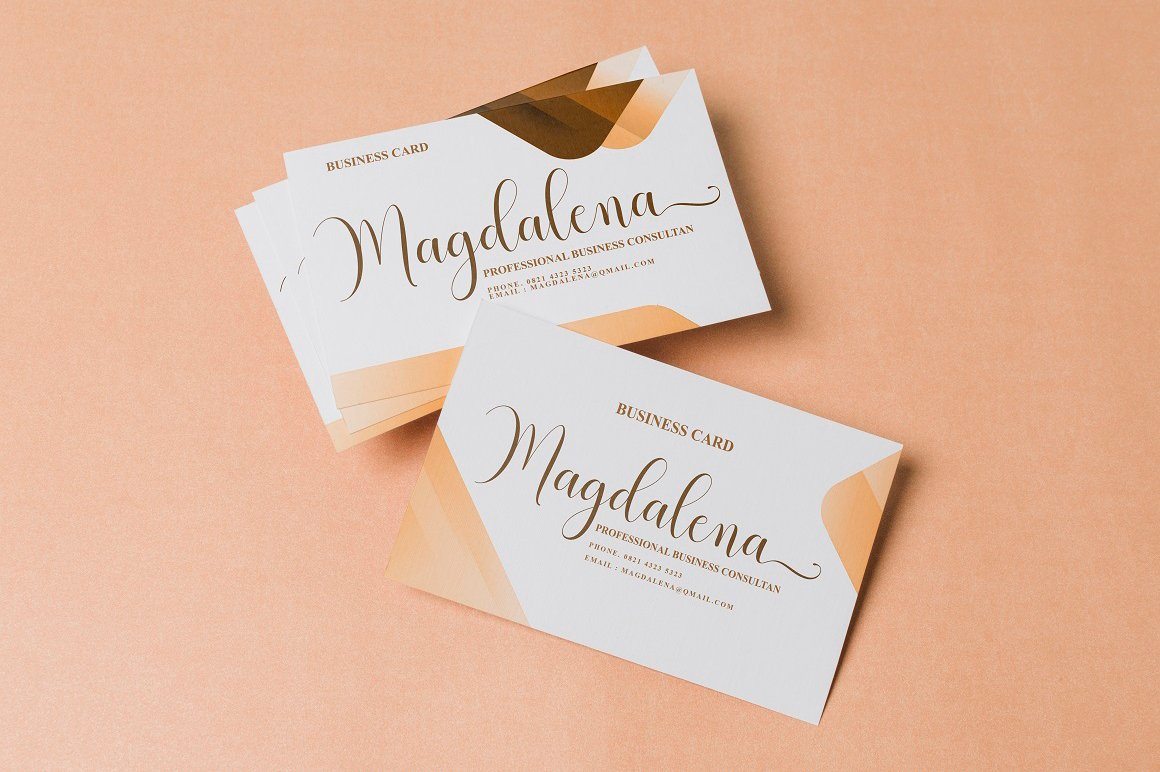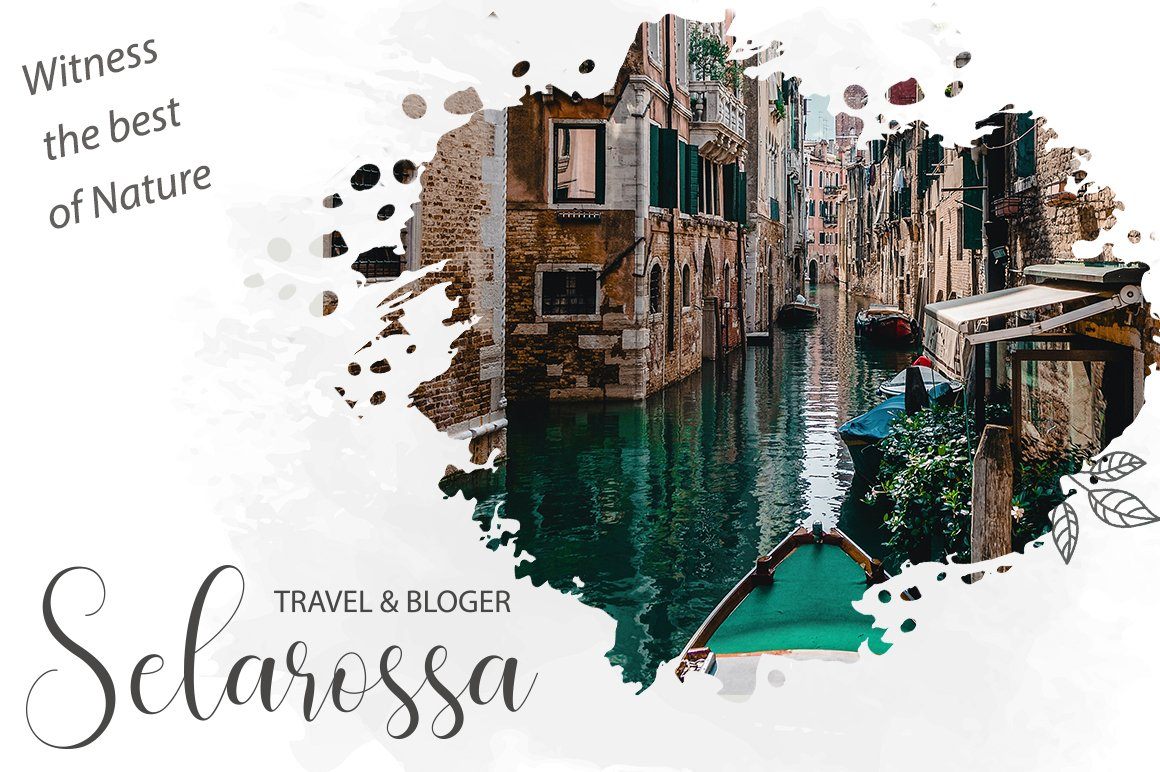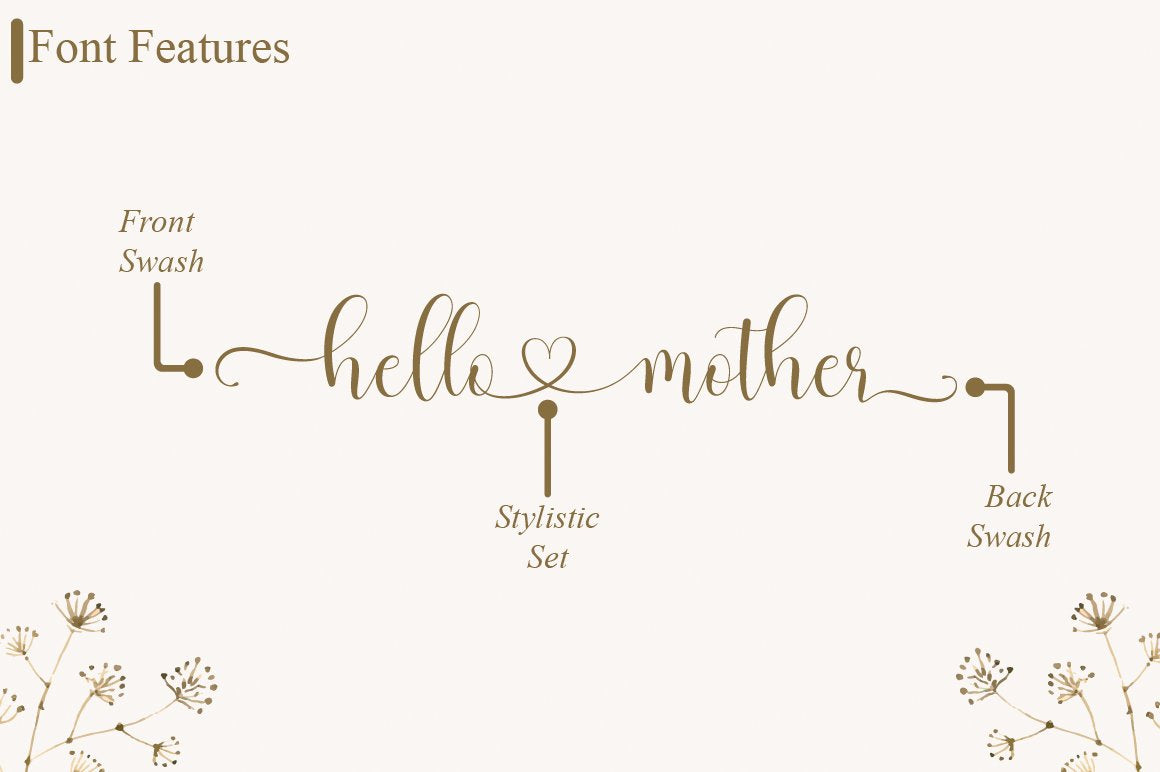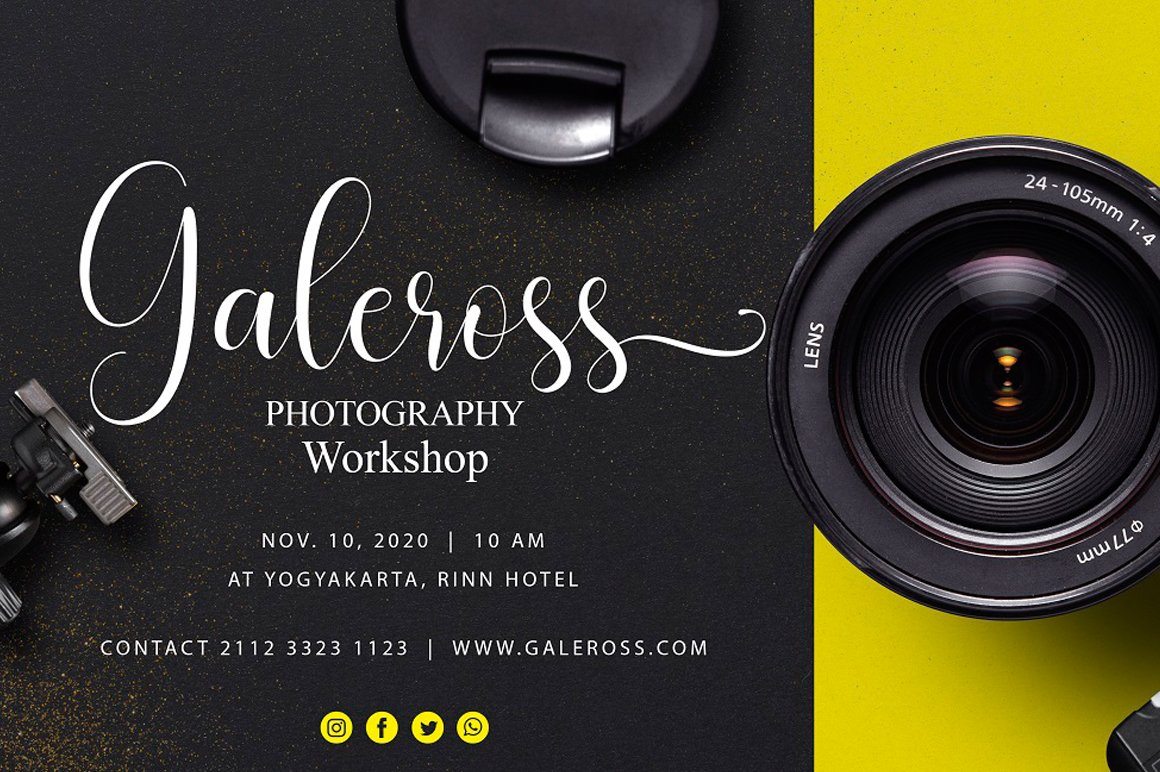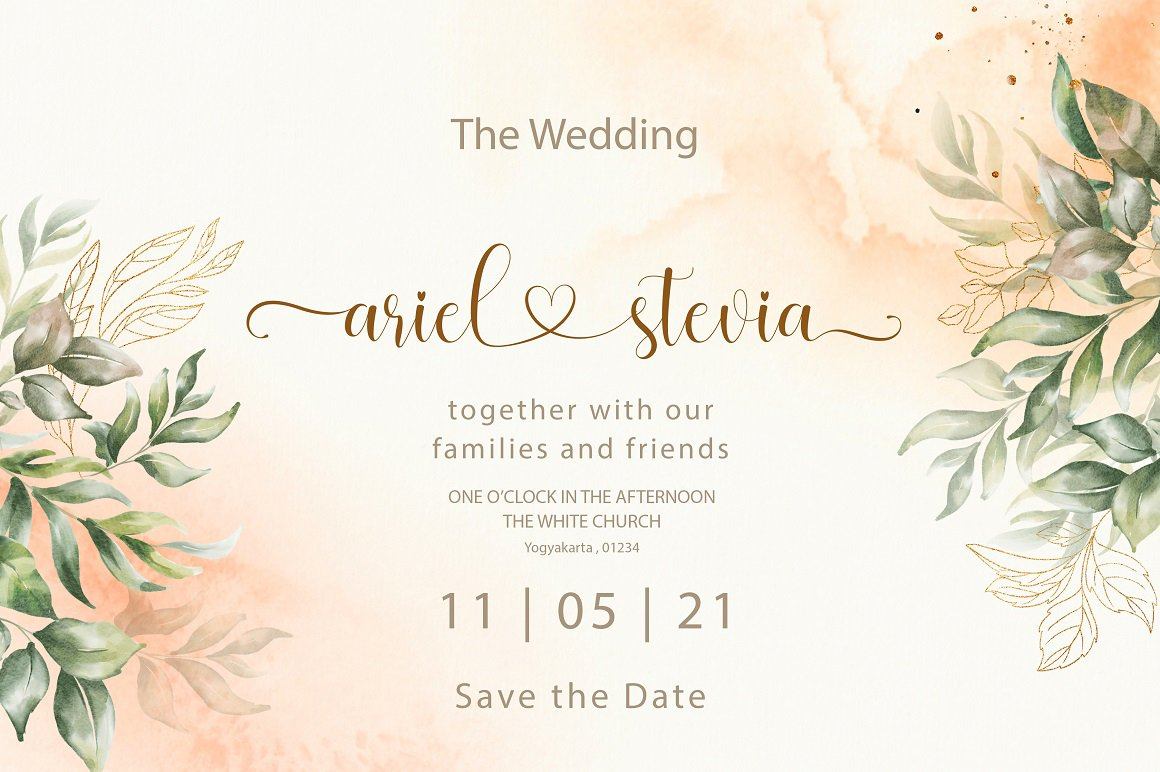
About hello mother – a luxury script font
The \”hello mother\” is a stylish feminine font. It includes amazing swashes which will add a feminine touch to your designs. What’s Included : hello mother OTF hello mother TTF Numeral and Punctuation 80 Swashes International Language Works on PC & Mac Simple installations Accessible in the Adobe Illustrator, Adobe Photoshop, Adobe InDesign, even works on Microsoft Word. Thank you for your purchase! Hope you enjoy with our font!